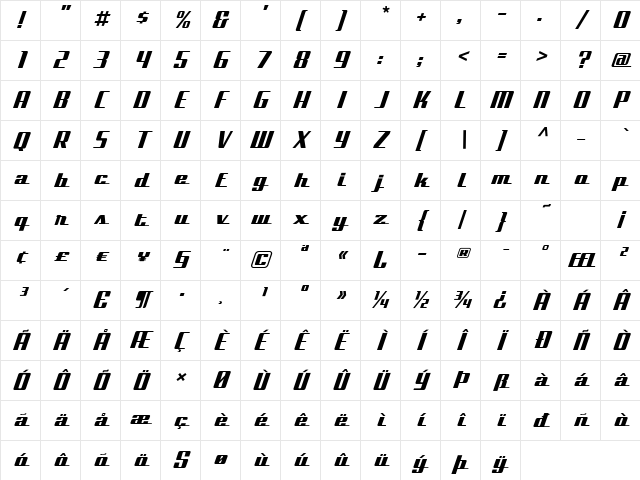
Bullet Regular
Foundry: Bullet (C) House Industries/Brand Design Co. Inc
Design Context for Bullet
Bullet is a composed and adaptable typeface that performs quietly and consistently across a wide range of design contexts.